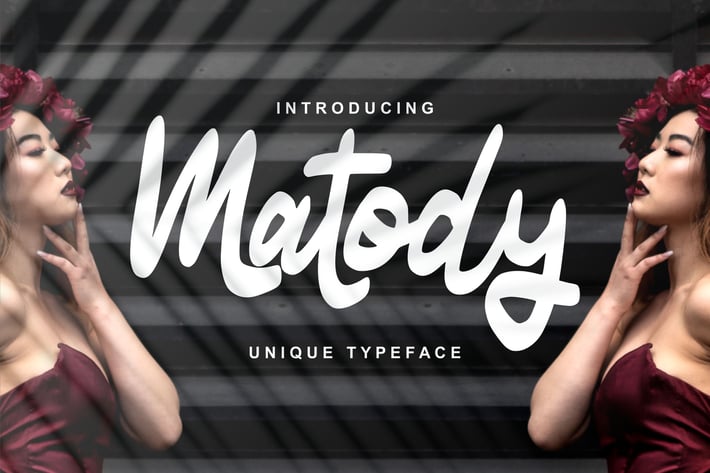
Matody | Unique Typeface Script
Matody | Unique Typeface Script with a calligraphy style, So beautiful on invitation like greeting cards, branding materials, business cards, quotes, posters, and more!